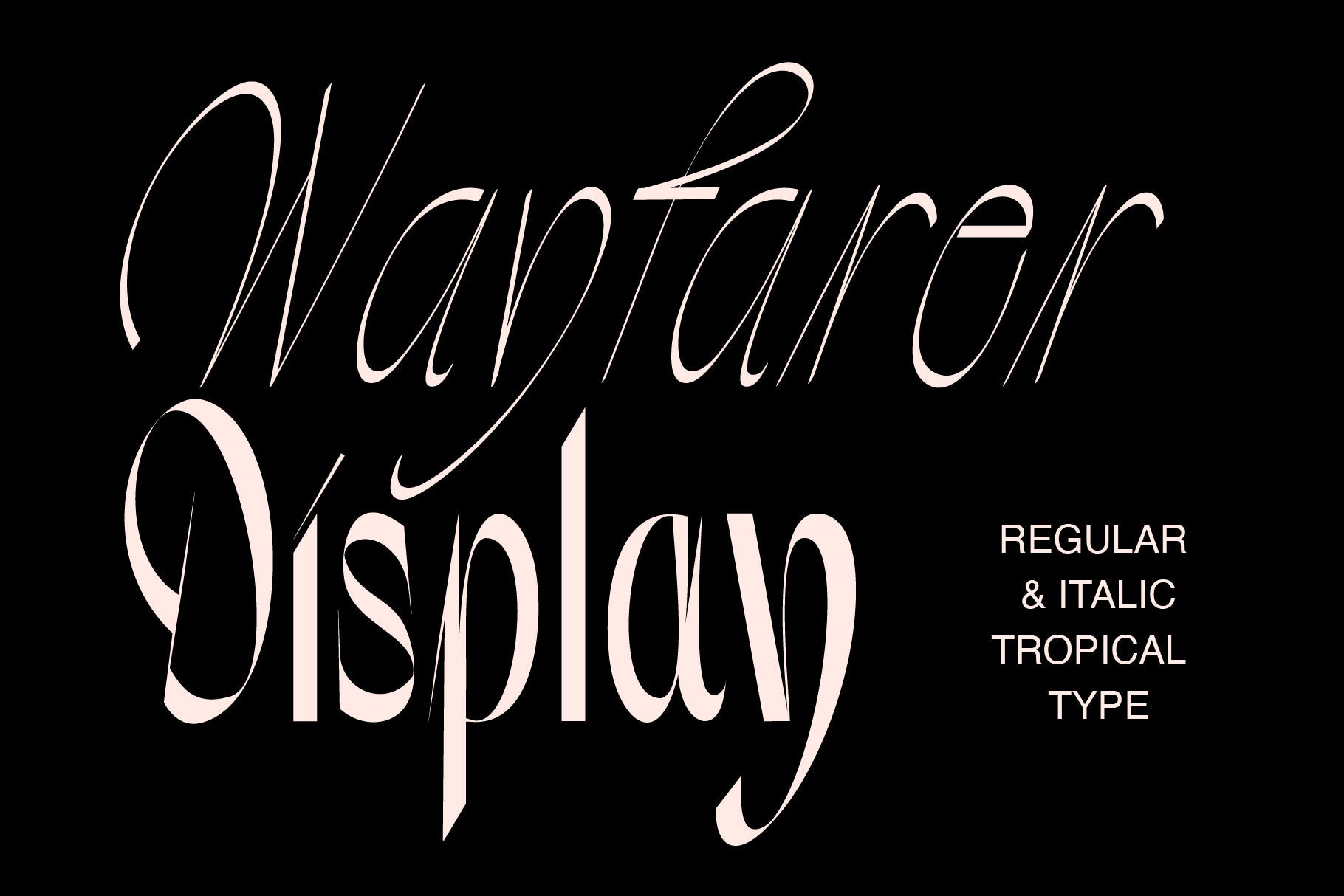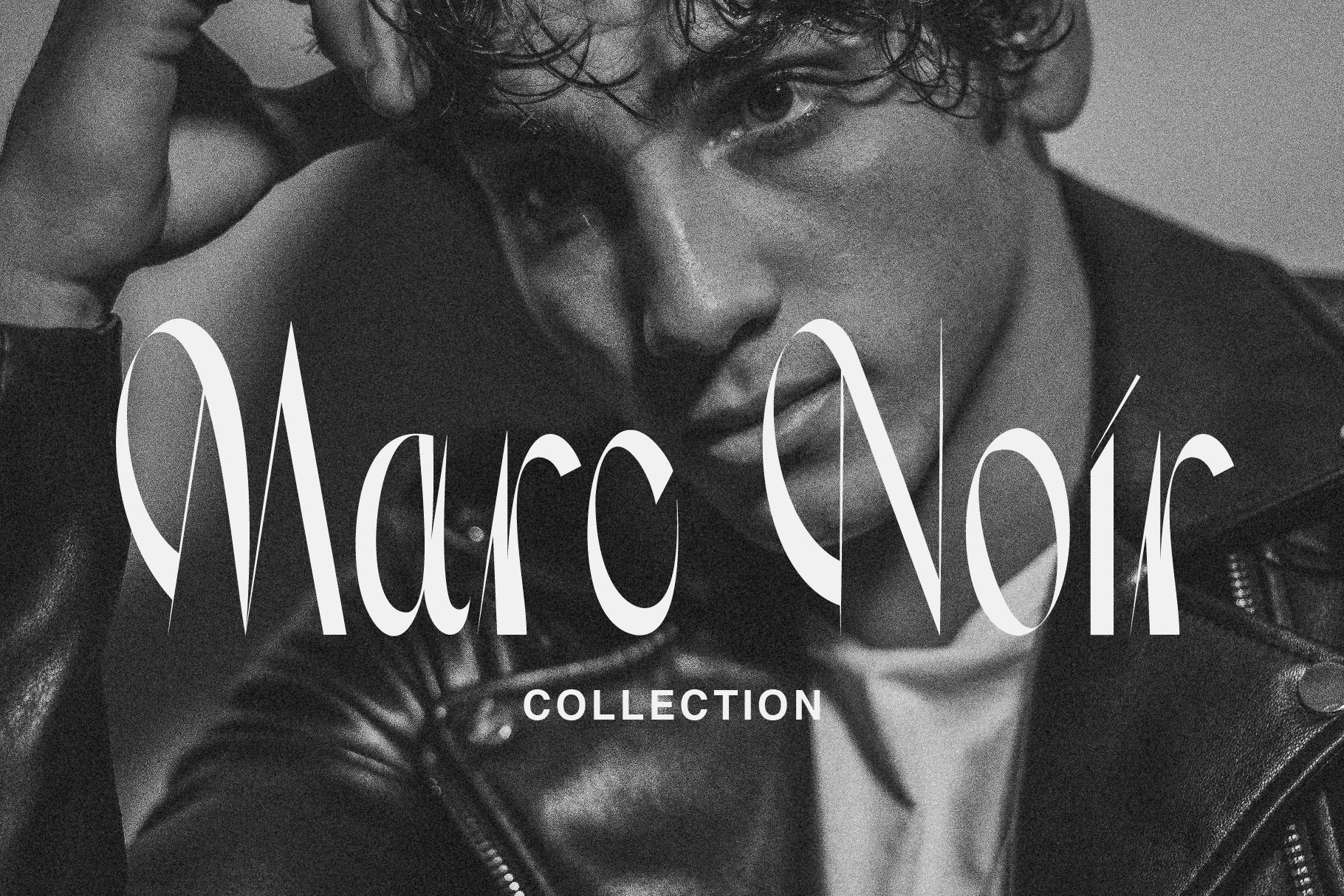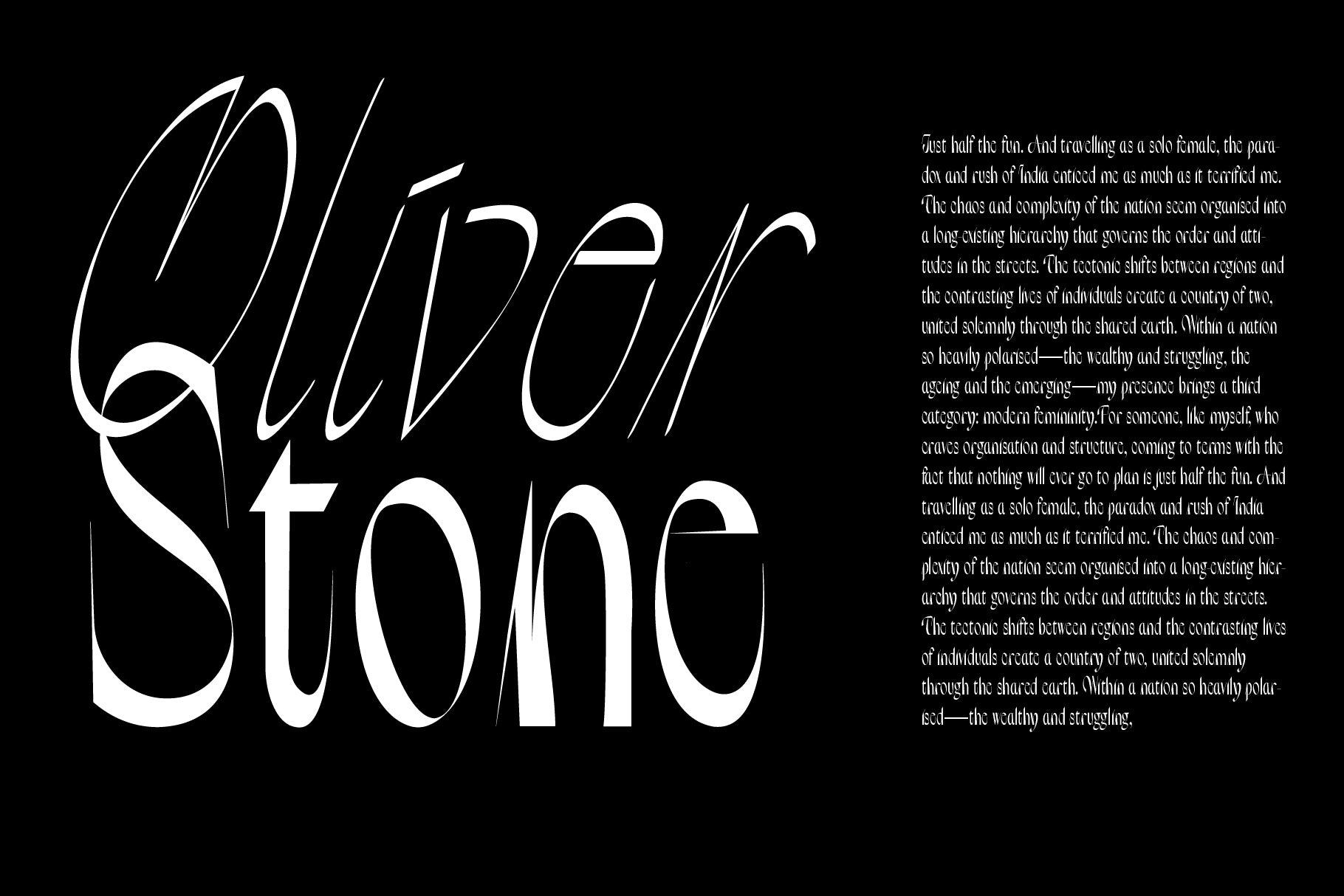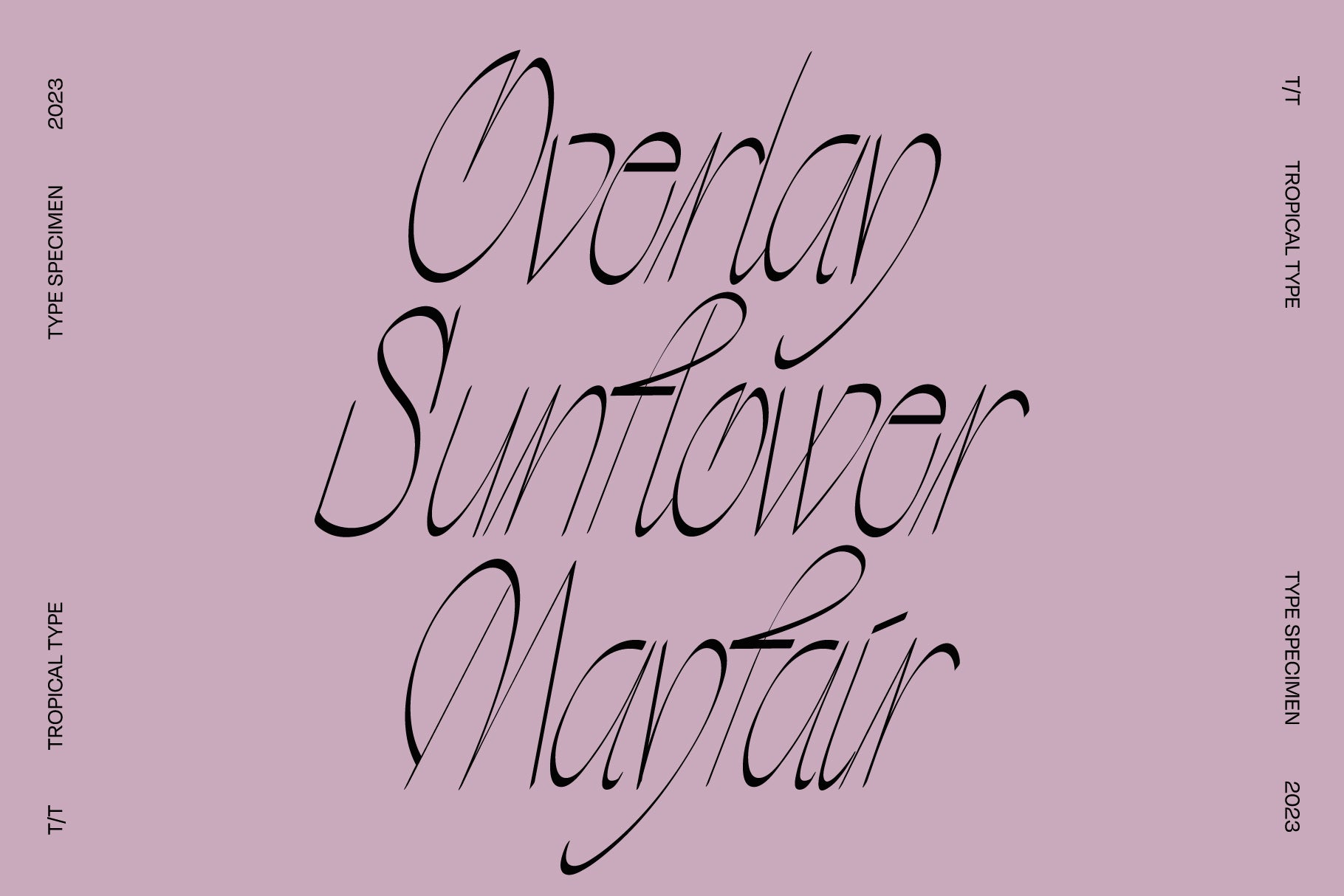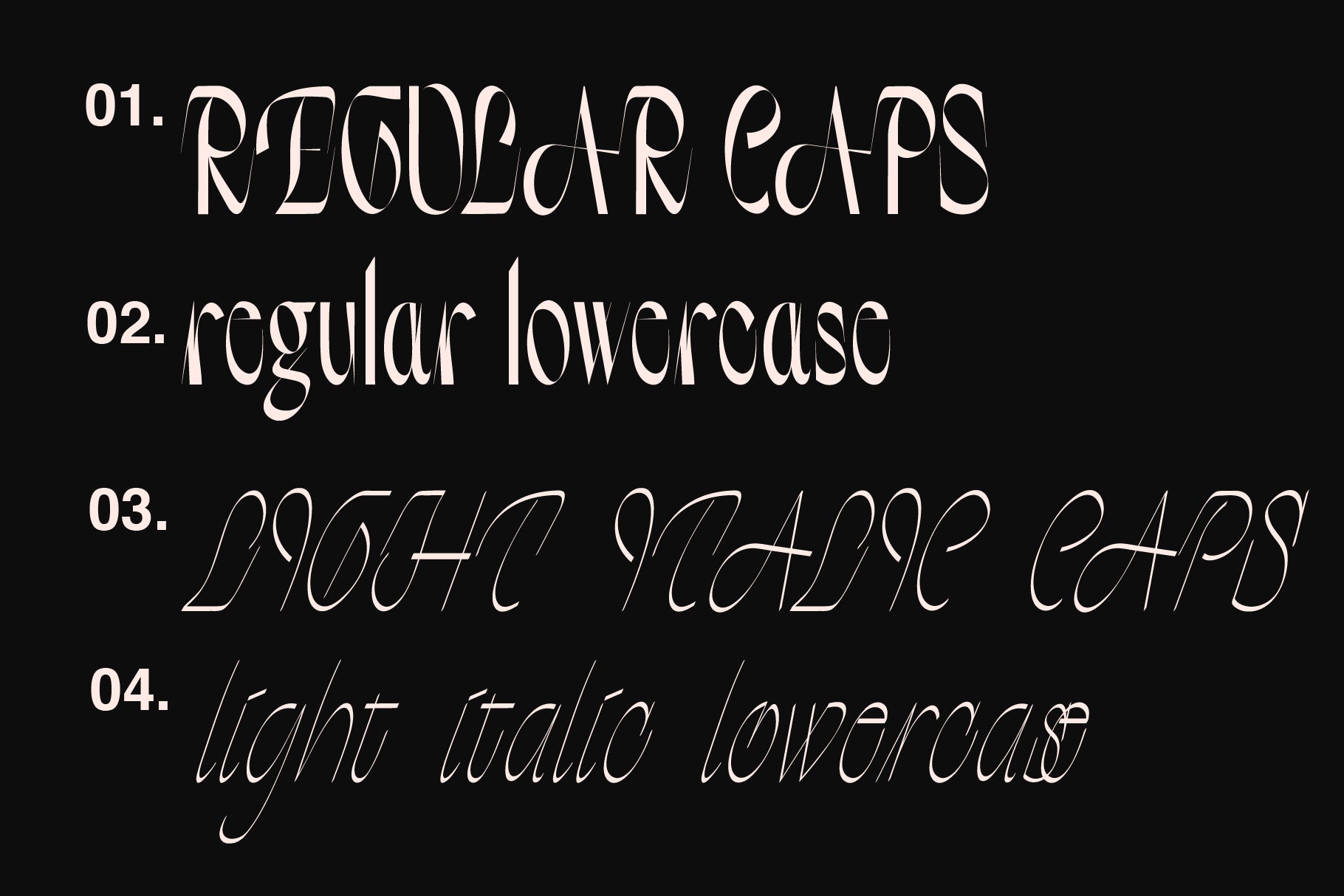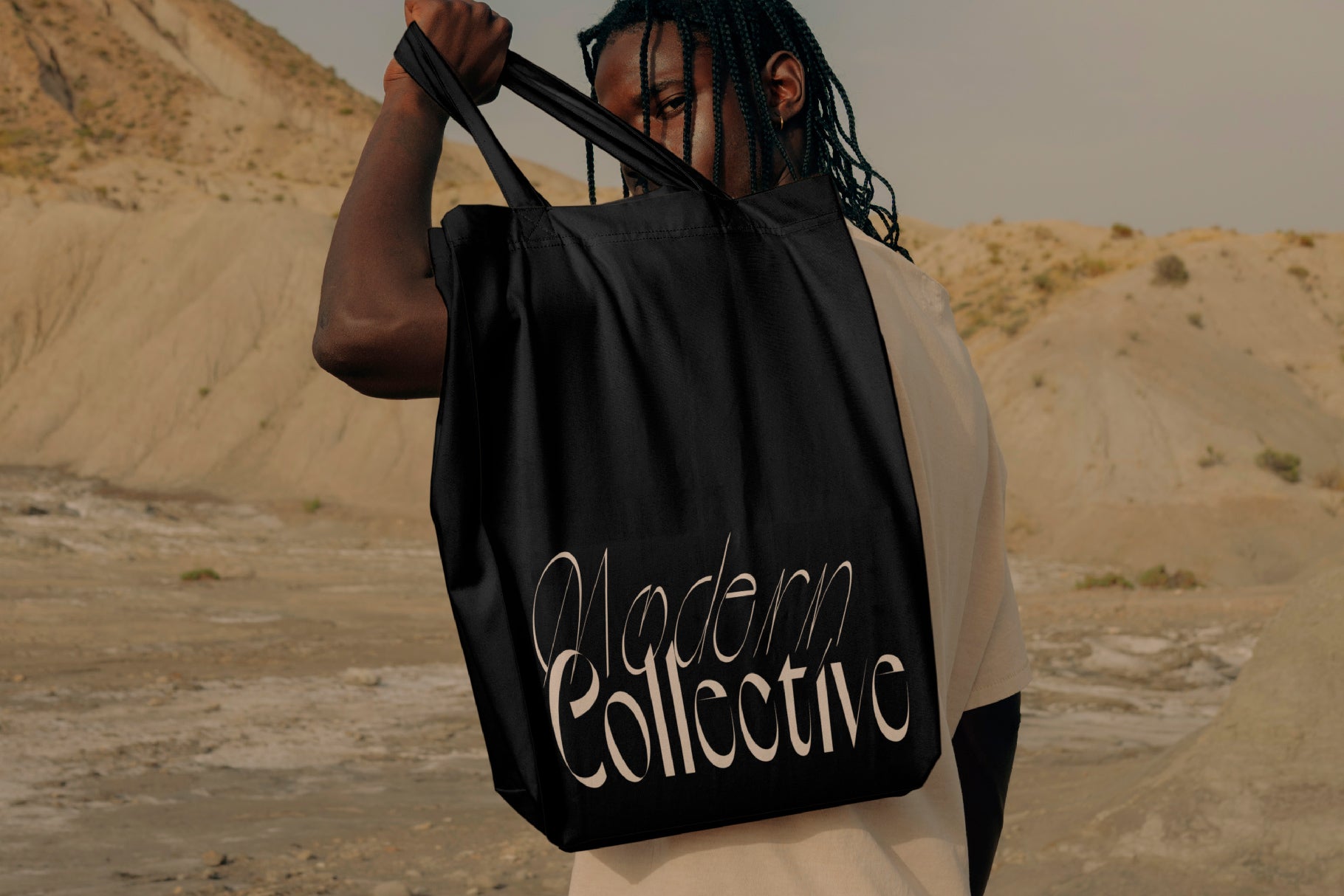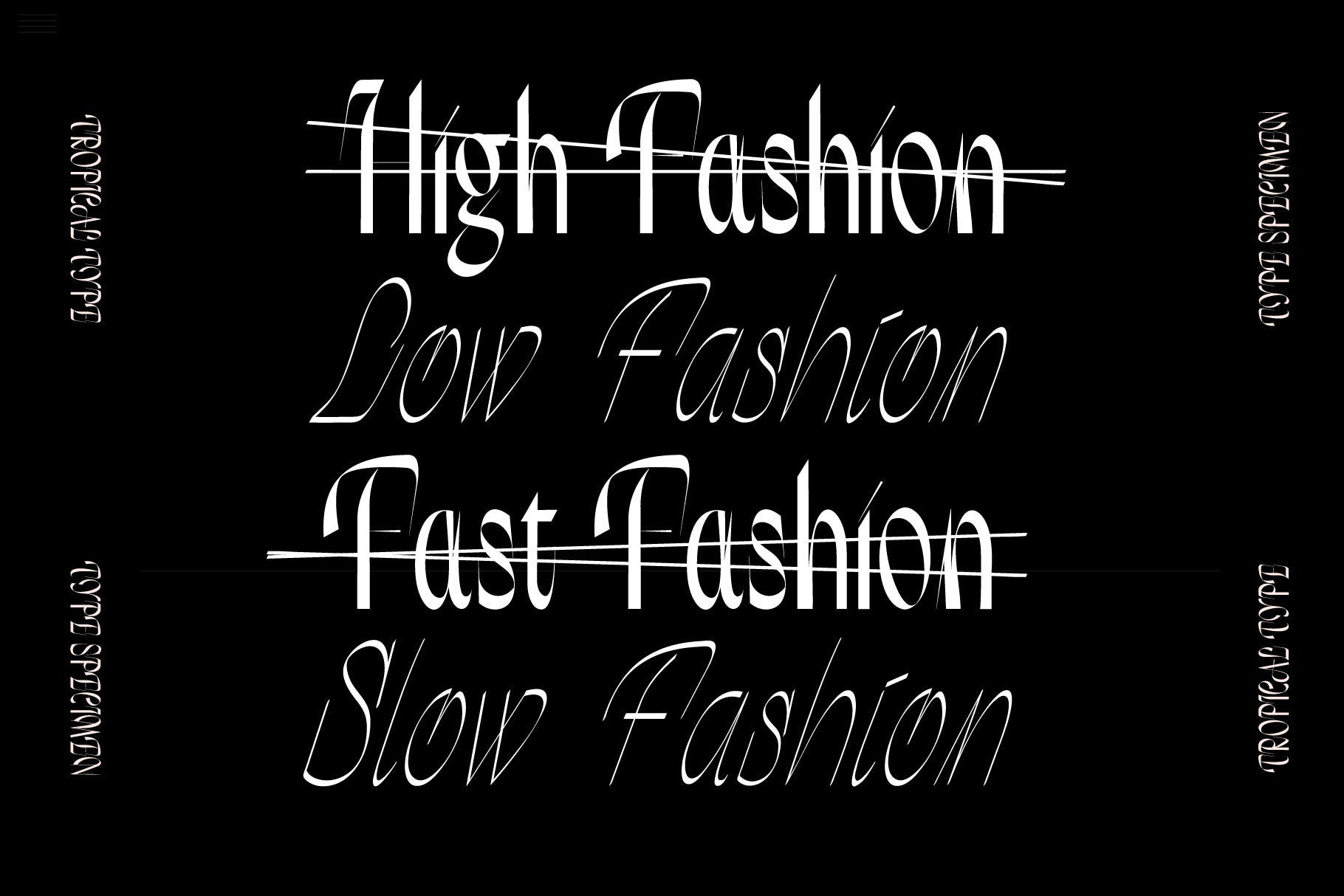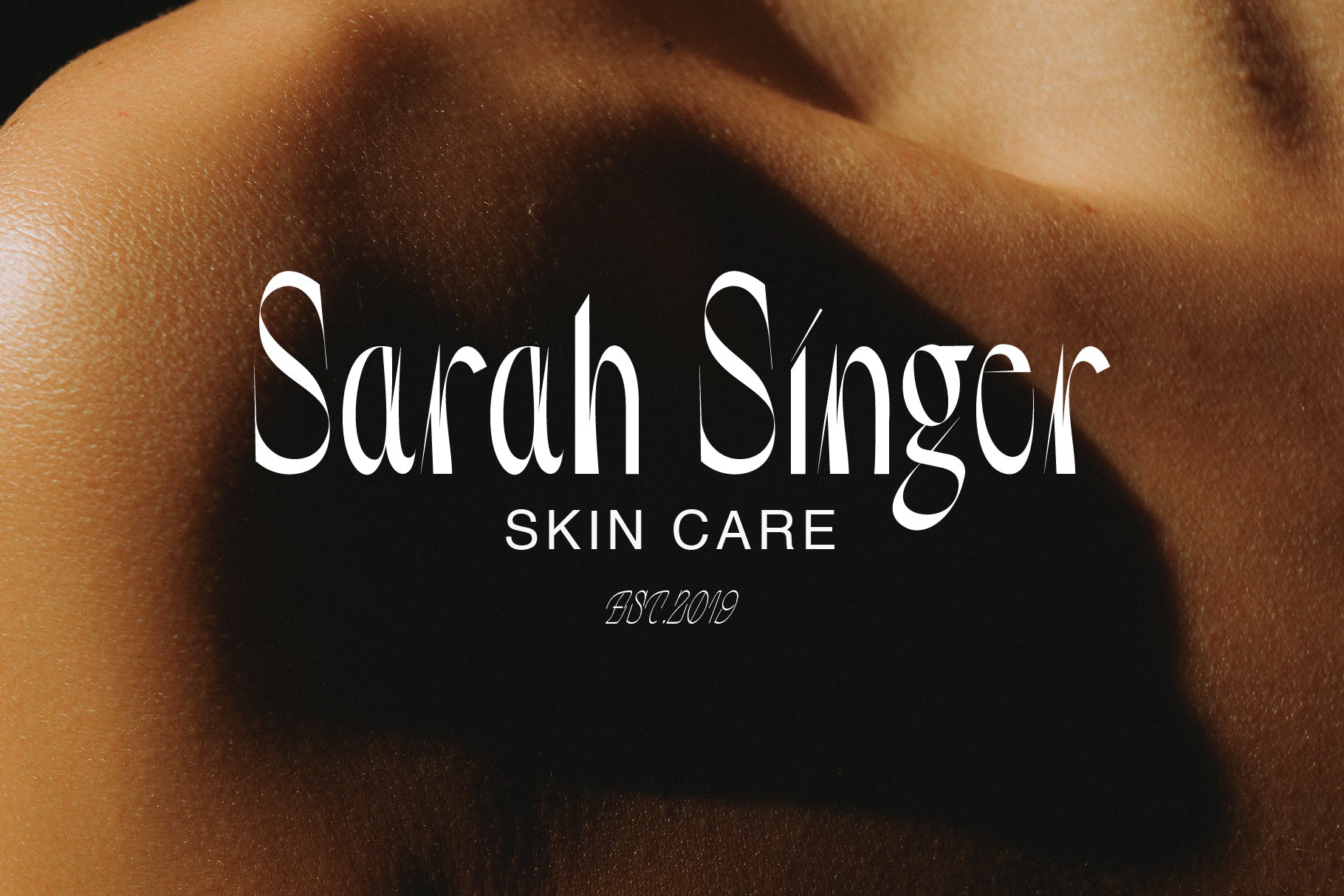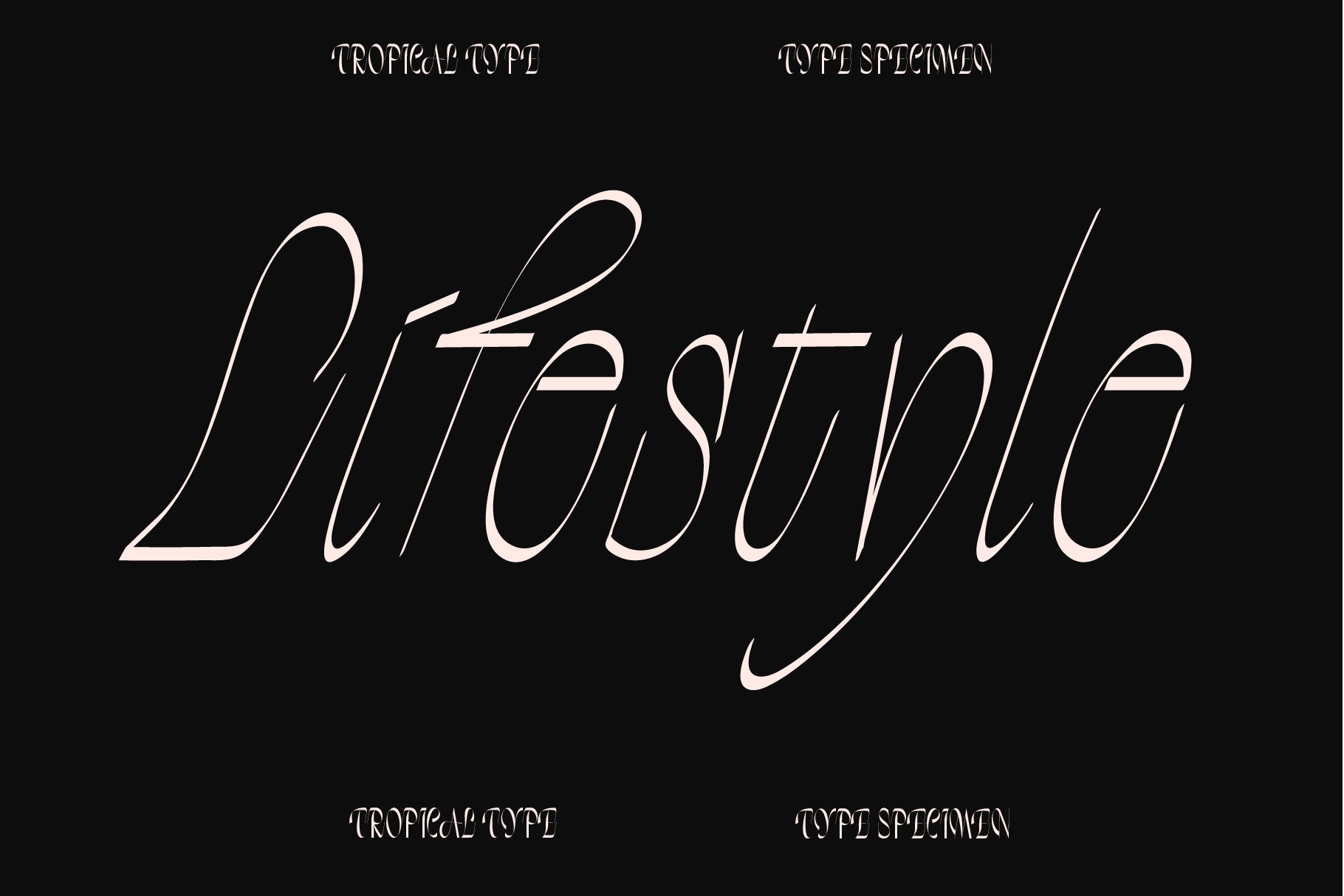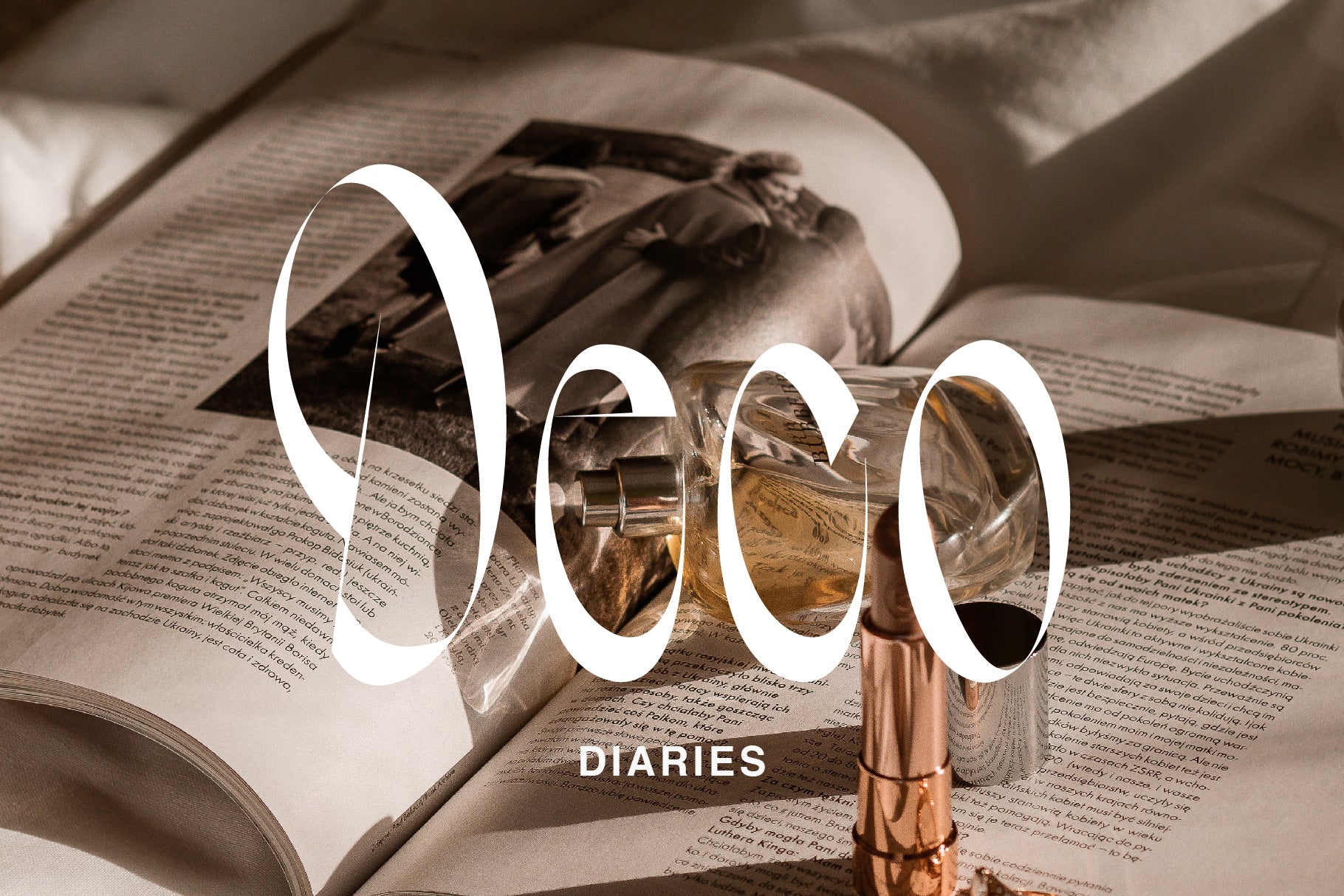
Wayfarer Display
Wayfarer Display is an ultra edgy modern serif with a light calligraphic italic to pair.
Wayfarer breaks lots of type design norms with extremely sharp points and mixed angles. The light italic pairs nicely and softens the overall design.